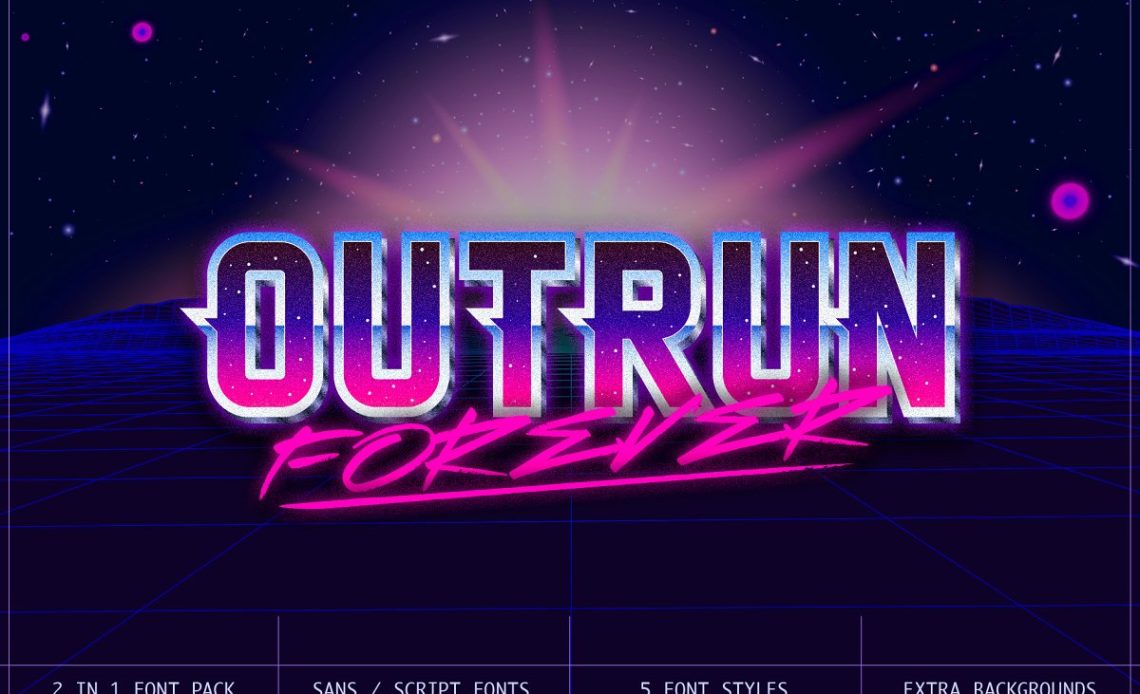
Get ready to take a trip back in time to the 80s and early 90s with our Outrun Forever - 2 in 1 Font Pack, created by the talented Artem Demidenko. This nostalgic font pack includes both Sans and Script fonts, each with 5 different styles, that will transport you to the days of VHS tapes, CDs, and Laser Discs.
The Outrunner Sans fonts feature uppercase and lowercase characters with a full set of numerals and punctuation, perfect for creating bold and stylish designs with an 80s flair. And if you're looking to add some texture and personality to your work, the Hotliner Script fonts are just what you need. With three different versions, each containing uppercase characters and a full set of numerals and punctuation, you'll have plenty of options to choose from.
Our Outrun Forever - 2 in 1 Font Pack is perfect for anyone looking to add a touch of nostalgia and personality to their designs. Whether you're creating a retro video game, a vintage movie poster, or anything in between, this font pack is the Best Font For Game Rules and will help you capture the spirit of the 80s and early 90s like no other.